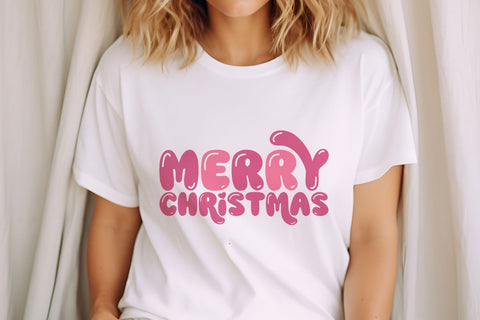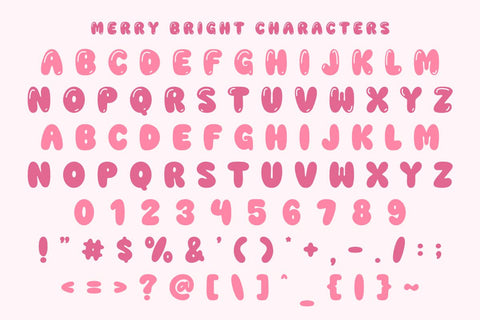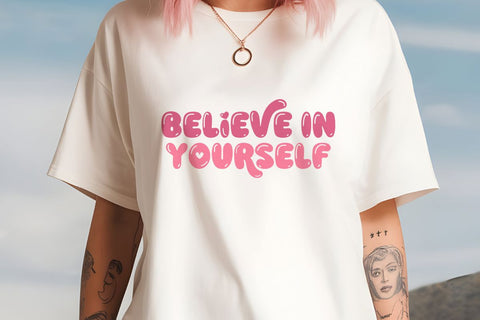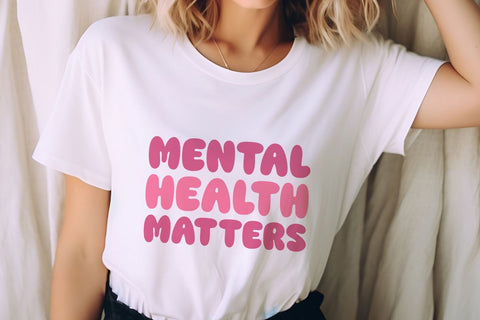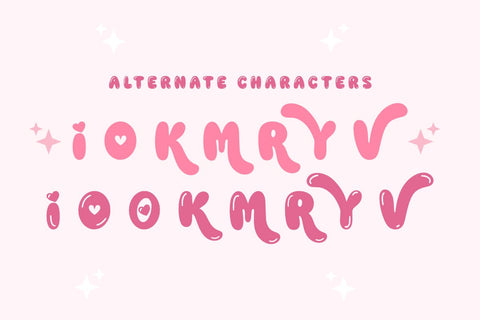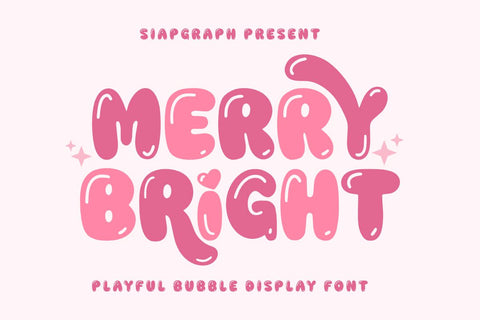
Merry Bright - Playful Bubble Font
Merry Bright is a fancy playful bubble font that brings a fun, nostalgic vibe to your creative projects. Its thick strokes and playful curves make it perfect for adding a vintage flair to any design.